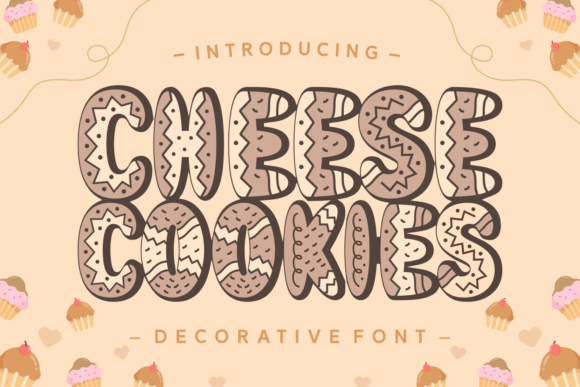
Welcome to the enchanting world of Cheese Cookies Font - a delectable collection of digital cookie-cutter letters, ready to sprinkle sweetness into your creative projects! Say goodbye to bland typography and embrace the delectable charm of Cheese Cookies, a font family that has captured the very essence of cookie craftsmanship. Inspired by the irresistible allure of freshly-baked cookies, this font oozes playfulness and whimsy, turning your designs into a sugary treat for the eyes.
Indulge in the captivating details of each letter, lovingly crafted to resemble a delightful cookie, complete with irresistible chocolate chips and intricate icing designs. These meticulously designed characters are not just letters; they are edible masterpieces waiting to satisfy your typographic cravings.
With Cheese Cookies Font, you'll embark on a culinary journey of creativity. Whether you're designing recipe books, irresistible menus, or enticing packaging for your bakery delights, this font will transform your words into a visual feast. Its captivating style will entice your audience, leaving them hungry for more of your culinary prowess.
Unleash your inner baker and let Cheese Cookies Font knead your words into typographic perfection. Its versatility extends beyond cookies; it's a perfect treat for any project seeking a touch of playfulness and charm. Let your imagination run wild as you sprinkle lettering magic onto invitations, posters, packaging, and any other confectionery-inspired venture.
If you're looking for a font that will leave a lasting impression, Cheese Cookies Font is the cherry on top. Its unique design and captivating details will make your projects sizzle with creativity. So, don't resist the temptation, sink your teeth into the delectable world of Cheese Cookies Font today and let your designs taste the sweet success they deserve!